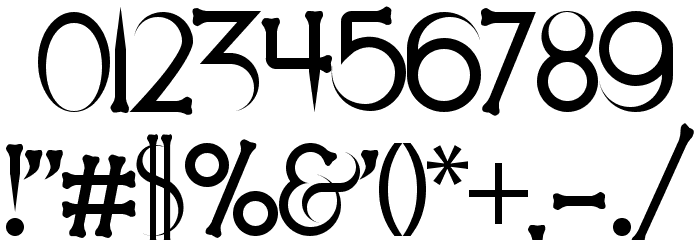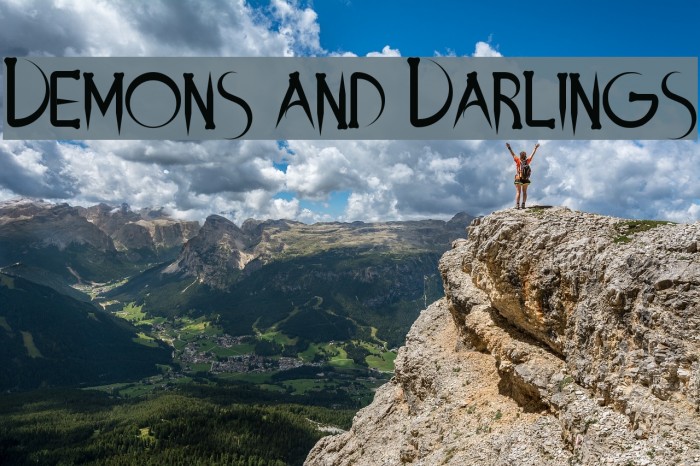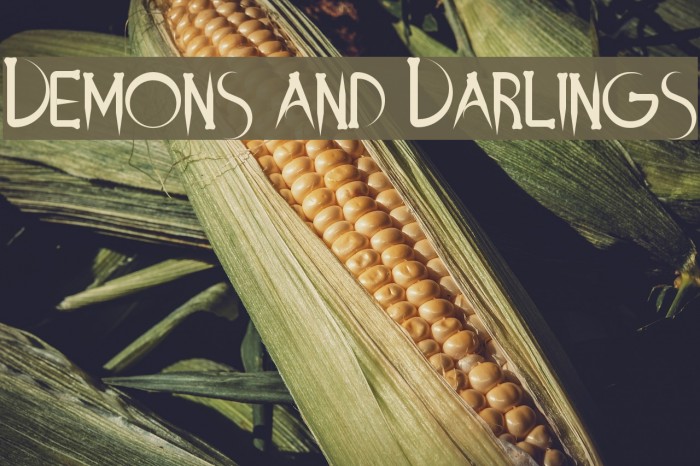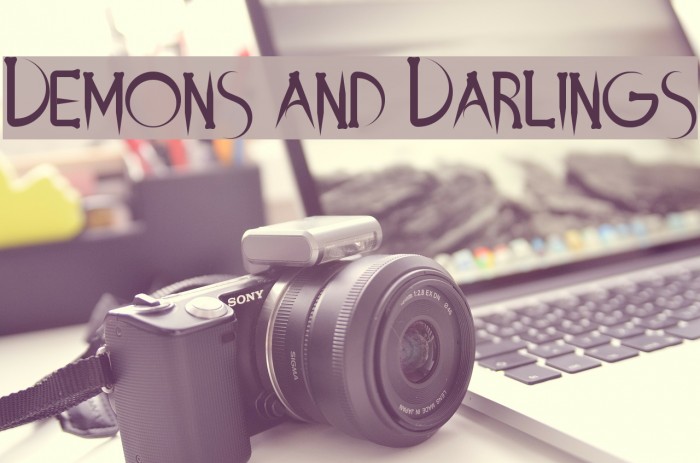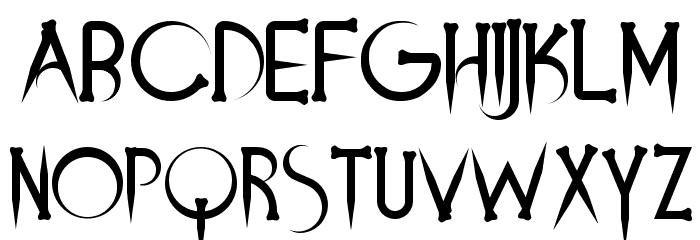
Demons and Darlings Font
✎ Gothic
Demons and Darlings Description
This font features a unique blend of sharp, pointed edges and smooth curves, creating a dramatic and eye-catching appearance. The uppercase letters are particularly striking, with elongated serifs and a gothic influence that adds a touch of mystery and elegance. The lowercase letters maintain a consistent style, complementing the uppercase with their own distinct flair. Numbers and special characters are designed with the same attention to detail, ensuring a cohesive look across all text. The overall design is bold and artistic, making it ideal for projects that require a standout typeface.
| Overall Style | Gothic, Artistic, Dramatic |
| Proposed Projects | Ideal for album covers, book titles, posters, and branding that seeks a dramatic and artistic touch. |